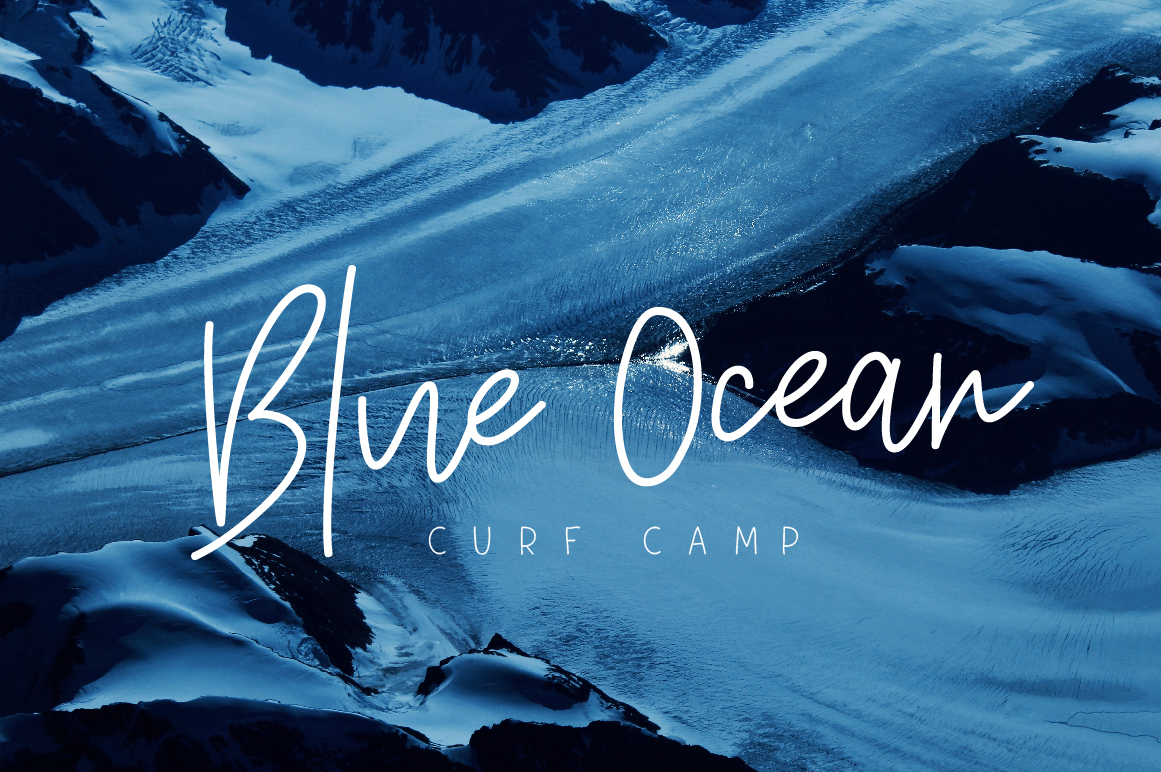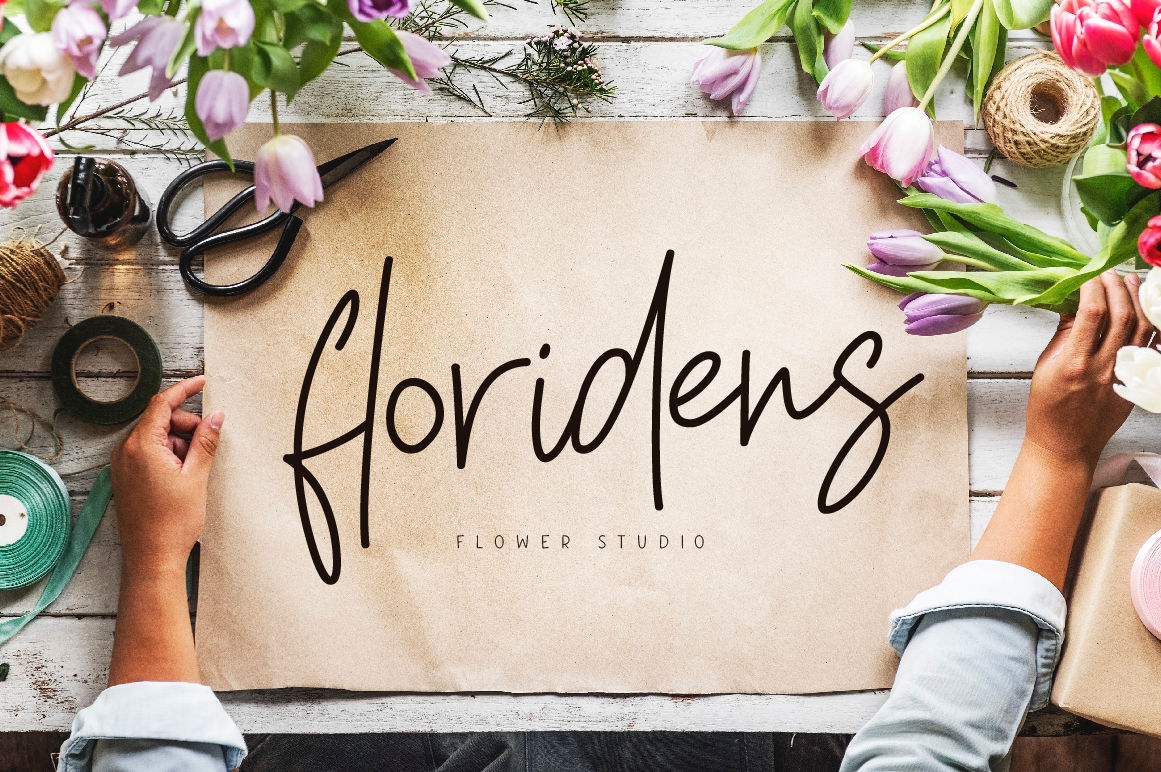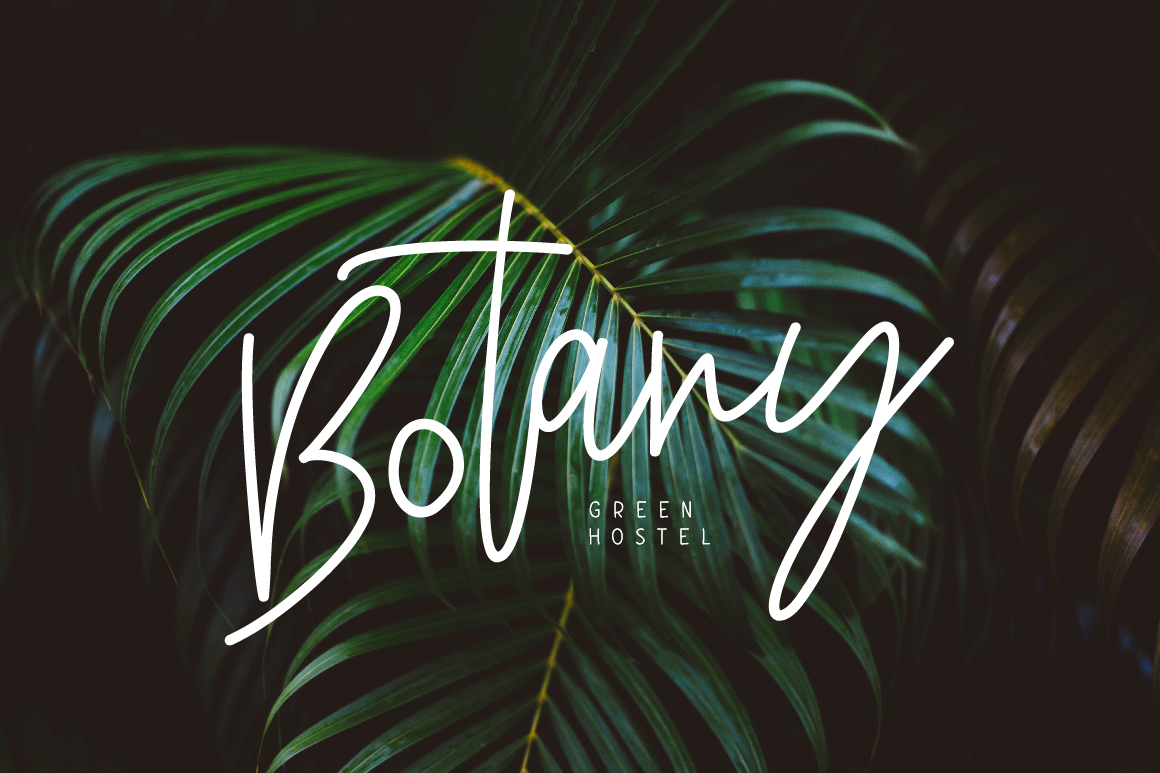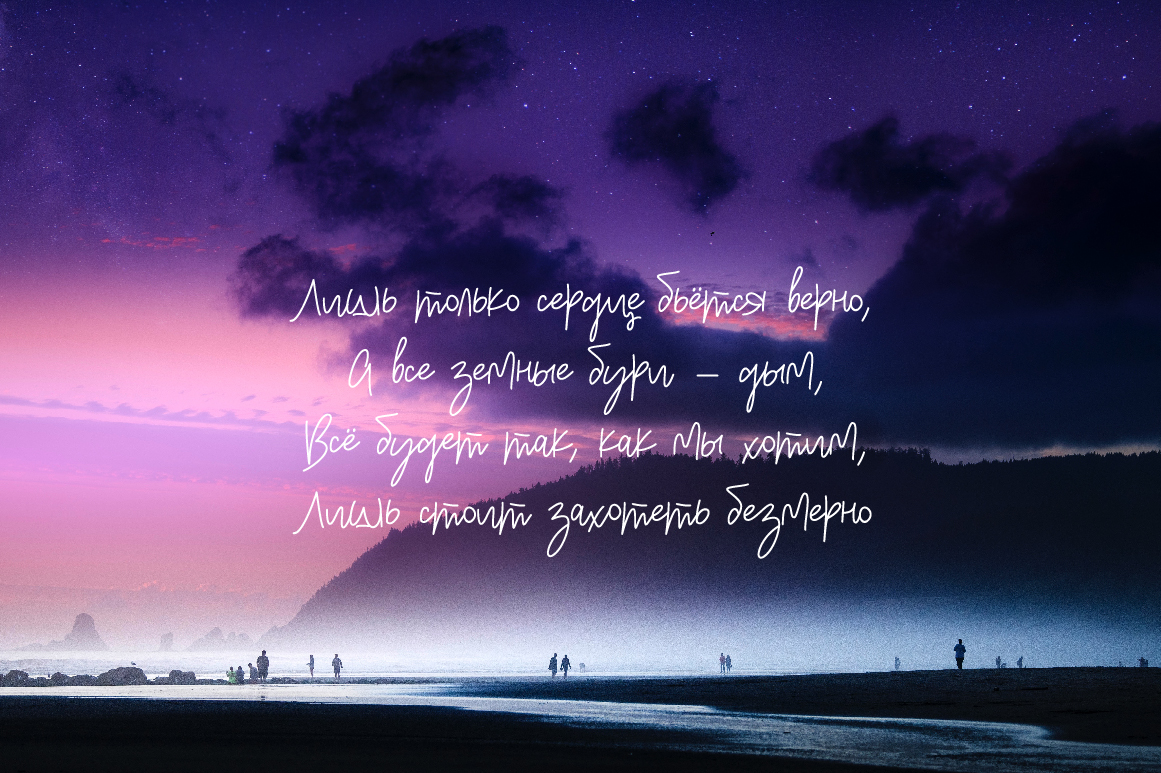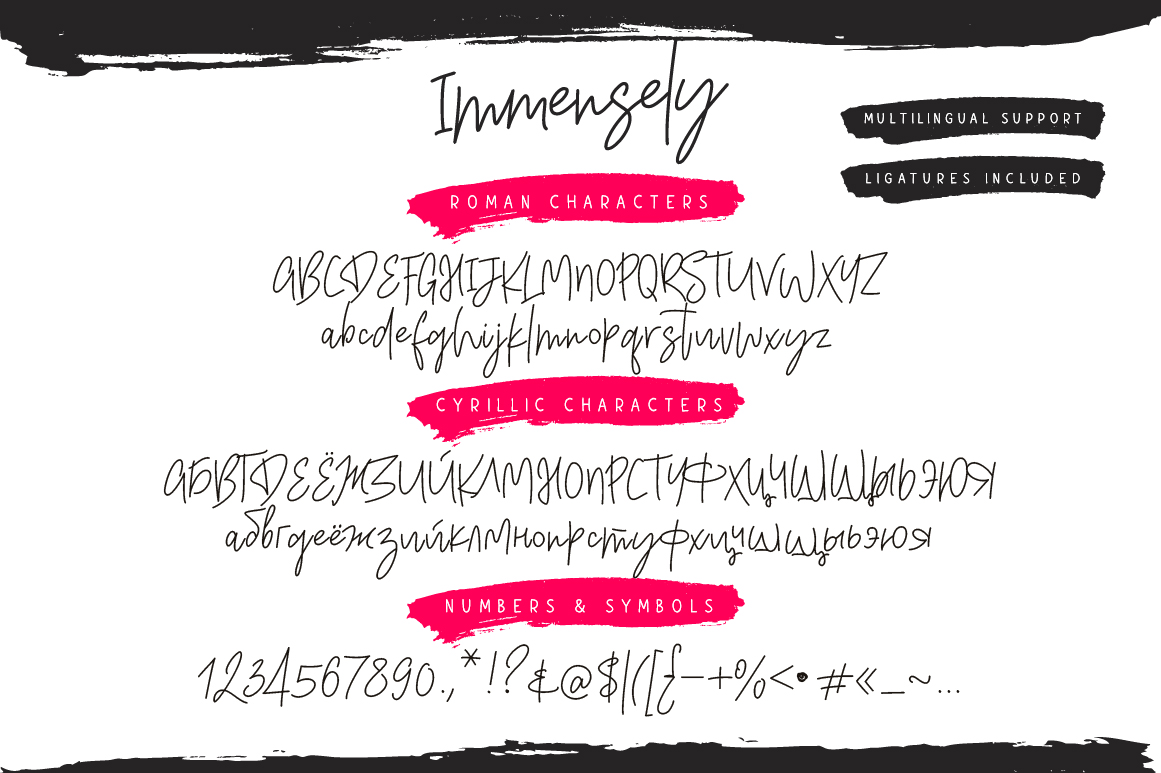
Introduction to Immensely Font
Remember the thrill of discovering that perfect design resource that elevates your creative project to the next level? It’s like stumbling upon a hidden treasure that instantly transforms your ideas into stunning visuals. For designers, this moment is priceless, and it’s exactly what happens when you come across the Immensely Font.
With its carefree edginess and free-flowing style, Immensely Font is the perfect addition to any modern design. Whether you’re working on a high-quality brochure, a creative campaign, or a simple yet effective logo, this stylish monoline script font is sure to make your project stand out. And the best part? It’s available for free download, making it an accessible and valuable resource for designers of all levels.
Key Features of Immensely Font
- Font size: 1024 glyphs, covering a wide range of languages and characters.
- Unique characteristics include a modern, clean, and elegant design, making it perfect for various creative projects.
Honest Review: Immensely Font
As a designer, I’m always on the lookout for high-quality design resources to elevate my creative projects. Recently, I had the chance to work with the Immensely Font, and I’m excited to share my honest review.
What works well: ✨ Immensely Font offers a unique and elegant design aesthetic that’s perfect for a variety of creative projects. The font is available for free download, making it an excellent resource for designers who are on a budget. The transparent background option is also a nice touch, allowing for seamless integration with other design elements.
What doesn’t work well: ⚠️ One of the limitations of the Immensely Font is its limited character set. While it’s still a high-quality font, it may not be suitable for projects that require a wide range of characters. Additionally, the font can be a bit difficult to read at smaller font sizes.
Overall, I’m impressed with the Immensely Font. Its unique design aesthetic and high-quality design make it a valuable resource for any designer. However, its limitations should be taken into consideration before using it for a project.
- Unique and elegant design aesthetic
Immensely Font is a high-quality design resource due to its clear and legible typography, which is ideal for a wide range of creative projects, from logos and branding to editorial and advertising designs. The font is carefully crafted to ensure maximum readability and aesthetic appeal, making it a valuable addition to any designer’s toolkit.